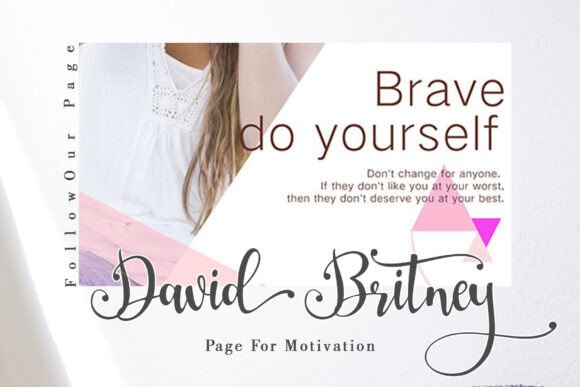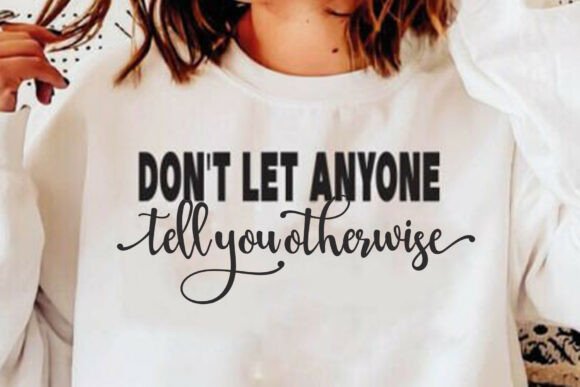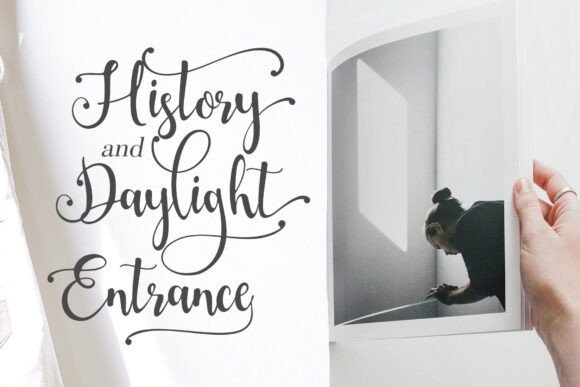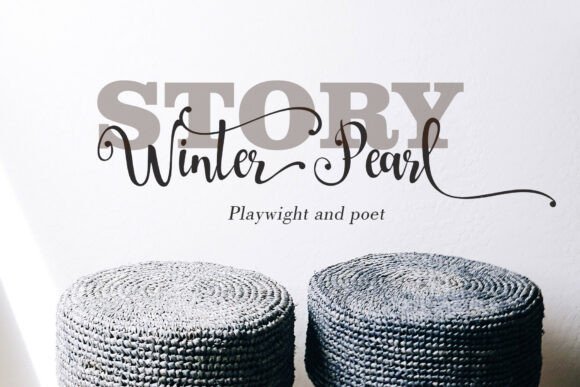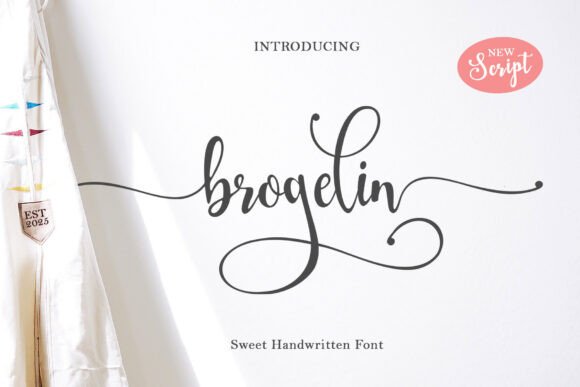
Discover the Unique Charm of Brogelin Font
Have you ever been in the middle of a design project, pouring your heart and soul into it, only to hit a roadblock when trying to find the perfect font? I recall a particularly frustrating experience when a client requested a distinctive, handwritten typeface that would add a touch of elegance and whimsy to their branding. After scouring the internet for what felt like hours, I stumbled upon the Brogelin font. It was love at first sight! ✨
The Brogelin font is a game-changer for designers, crafters, and creative hobbyists looking to add a dash of sophistication and playfulness to their work. This distinctive handwritten typeface effortlessly combines creativity and daring uniqueness, making it perfect for projects that demand a bit of flair.
A Personal Review of Brogelin Font
• ✨ Elegant swash curves that add a touch of sophistication to any design
• ✅ Unconventional contours that set it apart from more traditional fonts
• 💫 Highly legible, even at smaller font sizes
• 🎨 Versatile and adaptable to various design styles and genres
While the Brogelin font is incredibly versatile, there are a few minor quirks to be aware of:
• ⚠️ Some characters may require manual kerning for optimal spacing
• 🤔 Limited language support, primarily suited for English and Western European languages
The Backstory Behind Brogelin Font
While the origins of the Brogelin font are shrouded in mystery, it’s said to have been inspired by the elegant handwriting of a 19th-century French artist. The font’s creator aimed to capture the essence of this artist’s work, infusing it with a sense of whimsy and playfulness. Today, Brogelin font continues to inspire designers and creatives around the world.
Q: What makes Brogelin font unique?
A: The Brogelin font stands out due to its elegant swash curves, unconventional contours, and sophisticated charm.
Q: Is Brogelin font suitable for body text?
A: While Brogelin font is highly legible, it’s best suited for headings, titles, and short paragraphs due to its distinctive style.